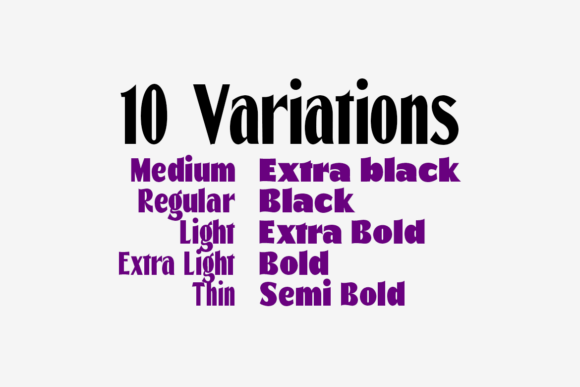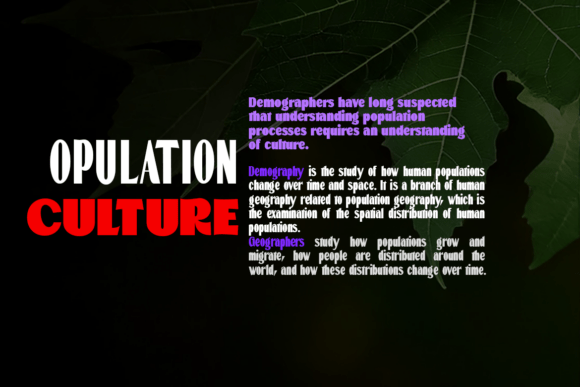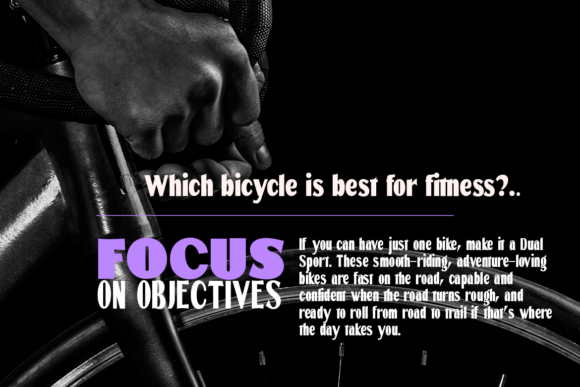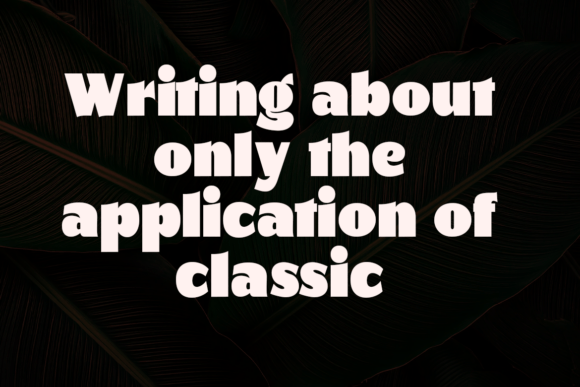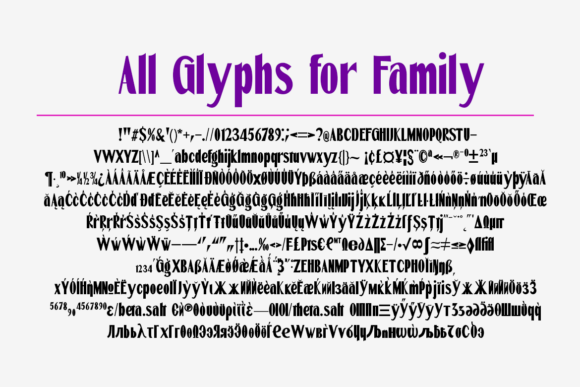
Discover the Versatility of Ballack’s Font: A Comprehensive Guide
Are you a designer or crafter looking for a font that can elevate your brand, logo, magazine, or movie project? Look no further than Ballack’s Font, a versatile sans font that belongs to 10 font families. With its bold style and variable font options, Ballack’s is an excellent choice for a wide range of applications.
What is Ballack’s Font?
Ballack’s is a sans font that boasts a bold style, making it perfect for headlines, titles, and emphasis text. The font comes in 10 font families, offering a diverse range of styles to suit various design needs. One of the standout features of Ballack’s is its variable font option, which includes a slim style with 10 straight weights. This allows designers to experiment with different weights and styles to achieve the desired effect.
The Benefits of Ballack’s Font
So, what makes Ballack’s Font an excellent choice for designers and crafters? Here are just a few benefits:
- Versatility: With 10 font families and 10 straight weights, Ballack’s offers a wide range of applications. Whether you’re designing a logo, magazine, or movie title, Ballack’s has a style to suit your needs.
- Modern feel: The outlined fonts in the Ballack’s family give any project a modern and sleek feel. This is perfect for brands and designers looking to create a contemporary look.
- Easy to read: Despite its bold style, Ballack’s is easy to read, making it suitable for body text and captions.
Applications of Ballack’s Font
Ballack’s Font is suitable for a wide range of applications, including:
- Branding and logos: The bold style and modern feel of Ballack’s make it an excellent choice for logos and branding materials.
- Magazines and publications: The font’s versatility and readability make it perfect for magazine titles, headings, and body text.
- Movies and video titles: The outlined fonts in the Ballack’s family give movie titles and video content a modern and cinematic feel.
Tips for Using Ballack’s Font
Here are some tips for getting the most out of Ballack’s Font:
- Experiment with weights: Don’t be afraid to experiment with different weights and styles to find the perfect look for your project.
- Pair with other fonts: Ballack’s pairs well with other sans fonts, making it easy to create a cohesive look.
- Use for emphasis: The bold style of Ballack’s makes it perfect for emphasis text, such as headings and titles.
In conclusion, Ballack’s Font is a versatile and modern sans font that is perfect for designers and crafters looking for a bold and sleek look. With its 10 font families, variable font options, and wide range of applications, Ballack’s is an excellent choice for branding, magazines, movies, and more. Whether you’re a seasoned designer or just starting out, Ballack’s Font is definitely worth checking out.